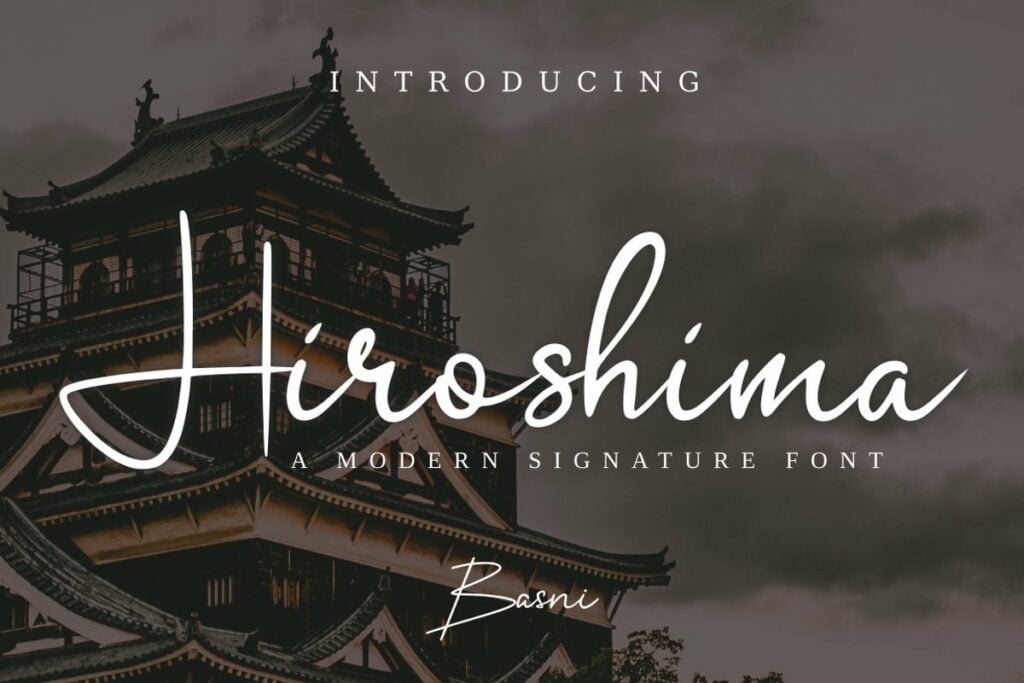
Hiroshima Font
Introducing the new Hiroshima Signature Font is a modern handwritten script typeface created by bee.genin. Hiroshima is perfect for branding, signature, watermark, business card, clothing, magazine, web, and any other design projects. Hiroshima looks naturally.
Hiroshima Signature Script Font